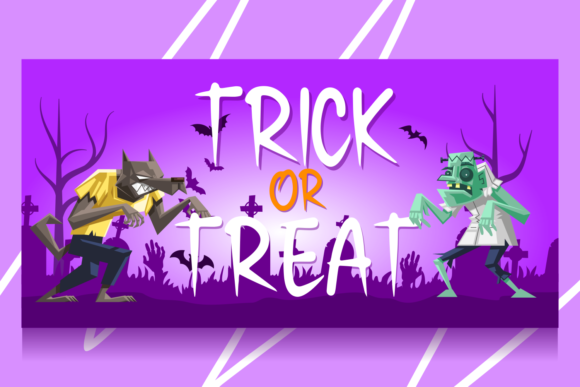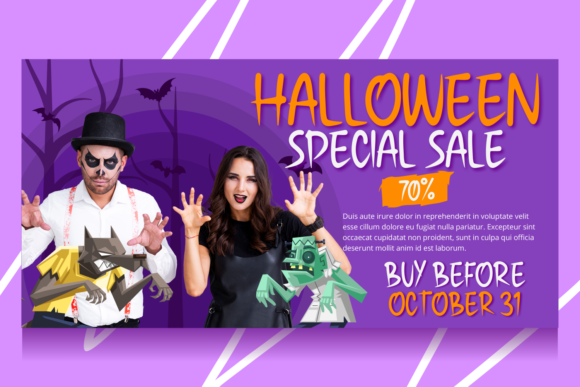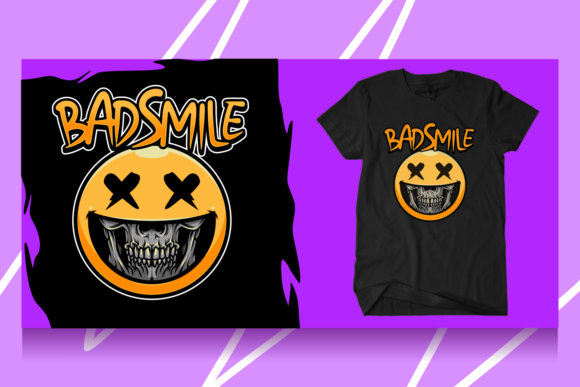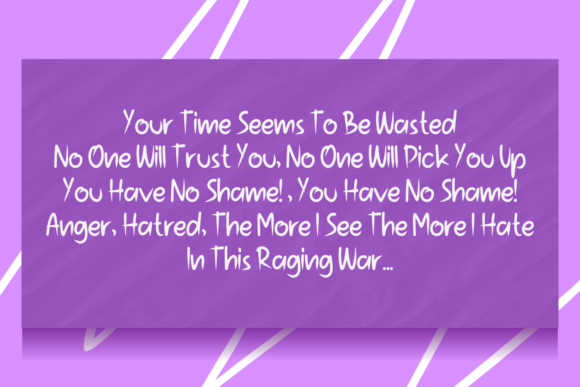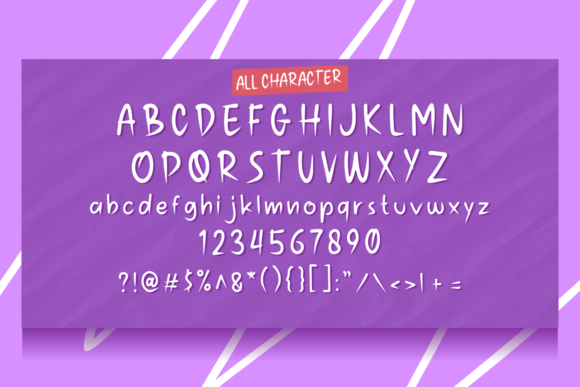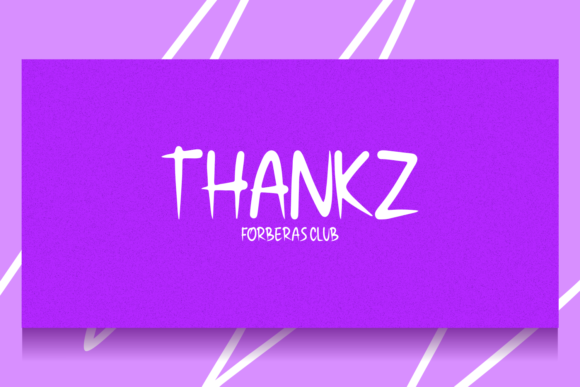
Introduction to Jumatan Font
As I sat at my desk, surrounded by scraps of paper and half-finished designs, I stumbled upon the perfect addition to my Halloween project – the Jumatan Font. Its playful, handwritten style was exactly what I needed to give my spooky designs an extra touch of whimsy. With a few clicks, I downloaded the Jumatan Font and got to work, bringing my creative vision to life.
As a designer, I’m always on the lookout for unique design resources that can elevate my projects. The Jumatan Font is a valuable addition to any creative’s toolkit, offering endless possibilities for Halloween designs, October parties, and other spooky celebrations. Whether you’re a seasoned pro or just starting out, this font is sure to inspire your next project.
With its high-quality design and transparent background, the Jumatan Font is a free download that’s perfect for adding a touch of magic to your creative project. So why not give it a try and see where your imagination takes you?
Key Features of Jumatan Font
- High-quality, unique design perfect for creative projects and design resources.
- Designed with a focus on detail and precision, resulting in a crisp and clean appearance.
- Supports a wide range of languages, making it a versatile choice for international design projects.
Honest Review: Jumatan Font
As a designer, I’m always on the lookout for high-quality design resources to enhance my creative projects. Recently, I stumbled upon the Jumatan Font, and I must say, it’s a gem.
- ✨ Beautiful, elegant design that’s perfect for luxury and high-end branding projects.
- ✨ Supports multiple languages, making it a versatile choice for international projects.
- ✨ Offers a transparent background, allowing for easy layering and compositing.
- ⚠️ Limited font styles and weights, which may not be suitable for projects requiring a wide range of typography options.
- ⚠️ Not ideal for digital use, as it may not render well on smaller screens and devices.
Overall, I’m impressed with the Jumatan Font’s design and versatility. While it may have some limitations, it’s a great resource for designers looking for a high-quality, elegant font for their creative projects. I’d definitely recommend it for print-based projects or branding initiatives that require a sophisticated, luxurious feel.
The Jumatan Font is ideal for use in creative projects such as logo design, infographics, and social media graphics. It is also suitable for use in presentations, documents, and websites.